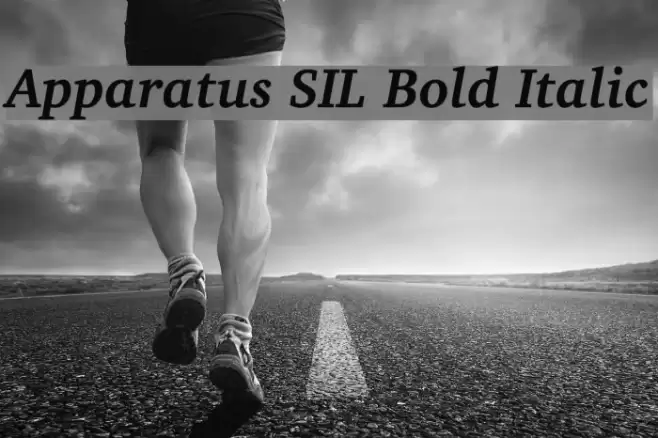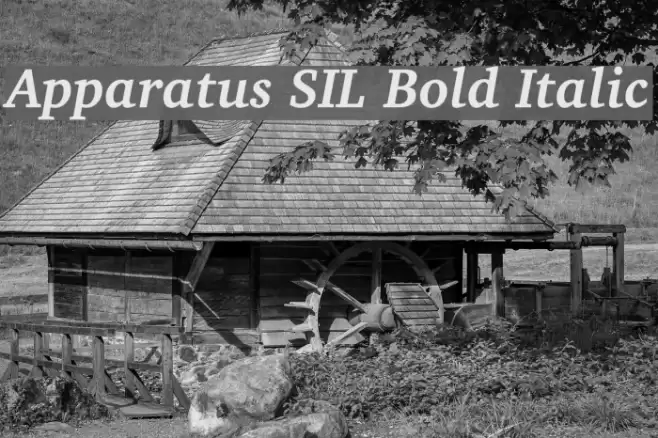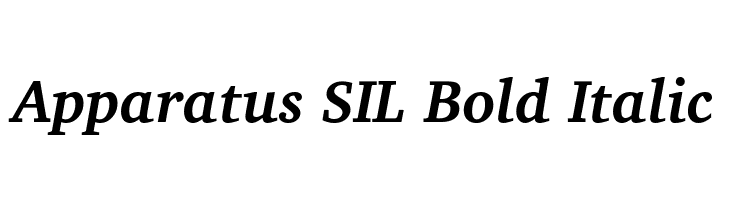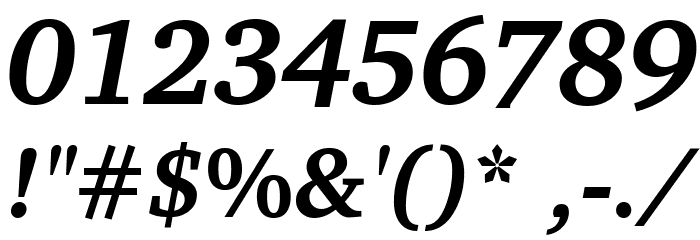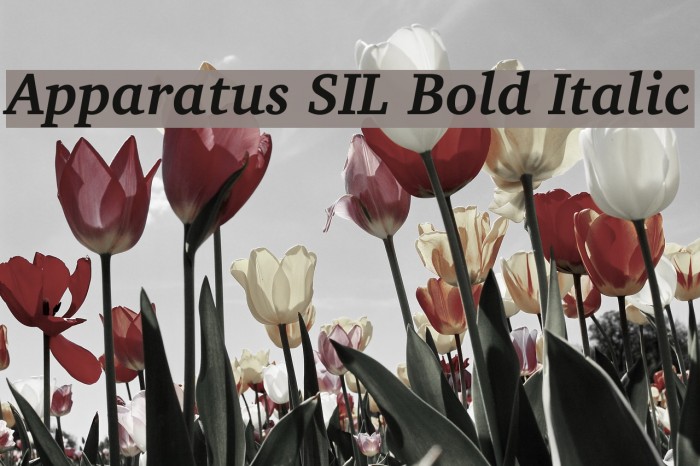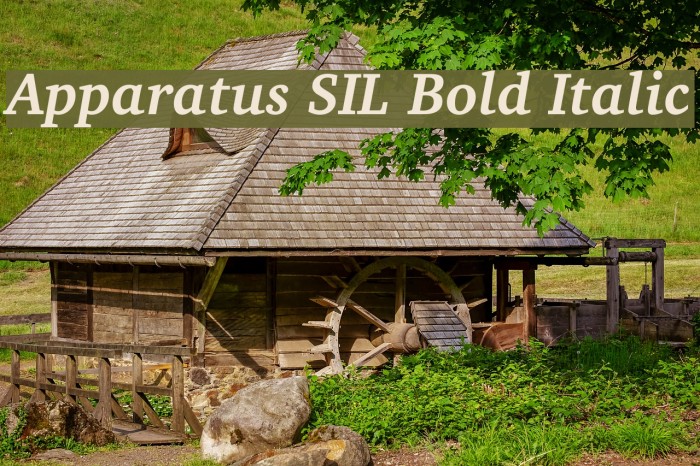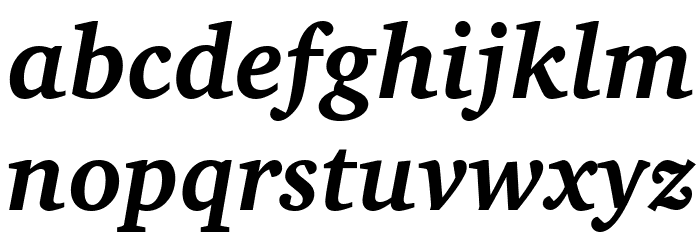
Apparatus SIL Bold Italic Font
Apparatus SIL Bold Italic Description
This font exhibits a bold and italicized style, combining strength and elegance. The characters are well-defined with a slight slant, giving a dynamic and sophisticated appearance. The uppercase letters are prominent and commanding, while the lowercase letters maintain a consistent flow, enhancing readability. The numerals are clear and distinct, matching the overall boldness of the font. Special characters are crafted with precision, ensuring they complement the alphabetic characters seamlessly. This font's bold and italic nature makes it suitable for impactful and stylish designs.
A bold and italicized font with a dynamic and sophisticated style from Uncategorized fonts.